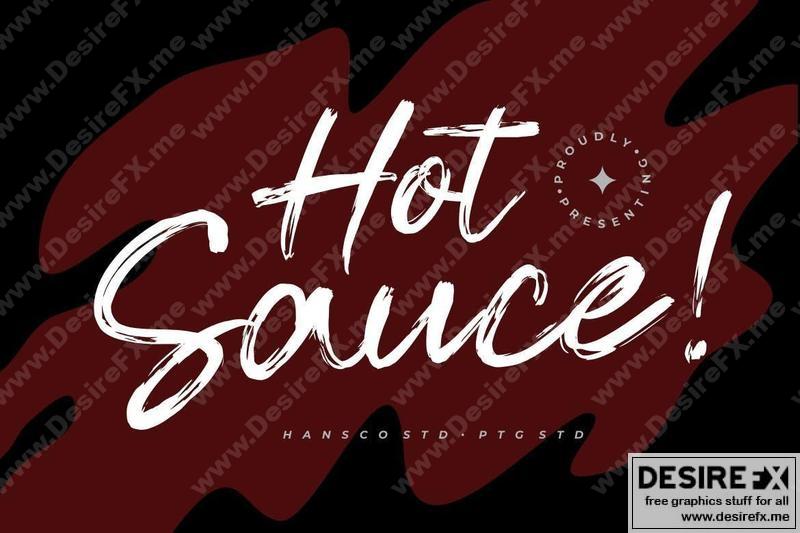
Hot Sauce CWUBQQY
Hot Sauce is a handwritten font with a dry brush texture. This texture is very detailed, made with digital devices and packaged professionally. This font is made by carrying the concept of a rough natural brush, so it is friendly and suitable for application in any handmade project. It is very recommended to use in crafts, posters, books, branding, quotes, print templates, packaging, invitations, food labels, product label, logo, shirt, magazine or anything else. This typeface comes in uppercase and lowercase, with punctuation, symbols, numerals, swashes and also has multilingual support. Swashes is alternate from numeral 0 – 9, You can access swashes from your OpenType panel in your design software. Enjoy !
• Uppercase & Lowercase
• Number
• Punctuation
• Multilingual Supports
• Swashes